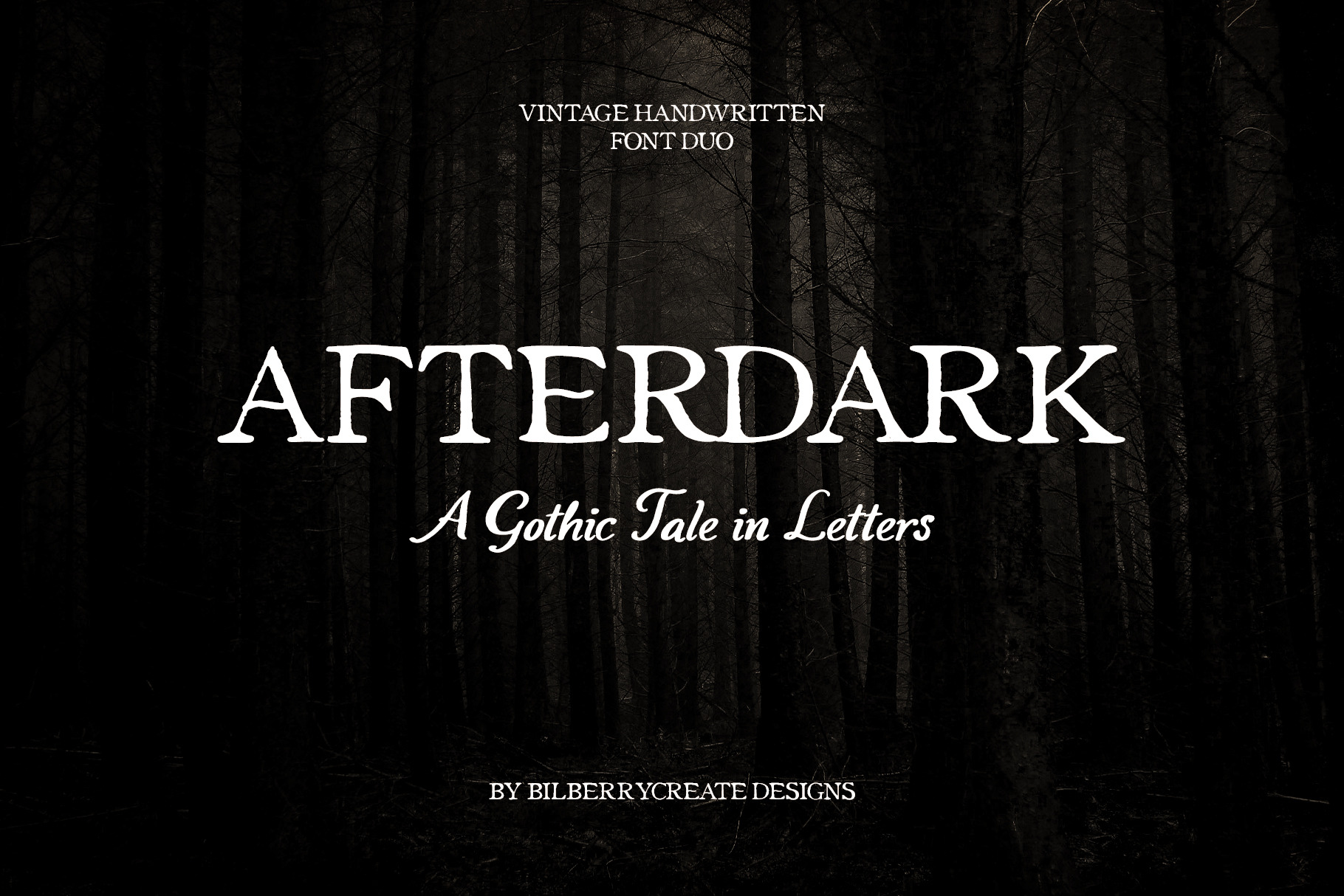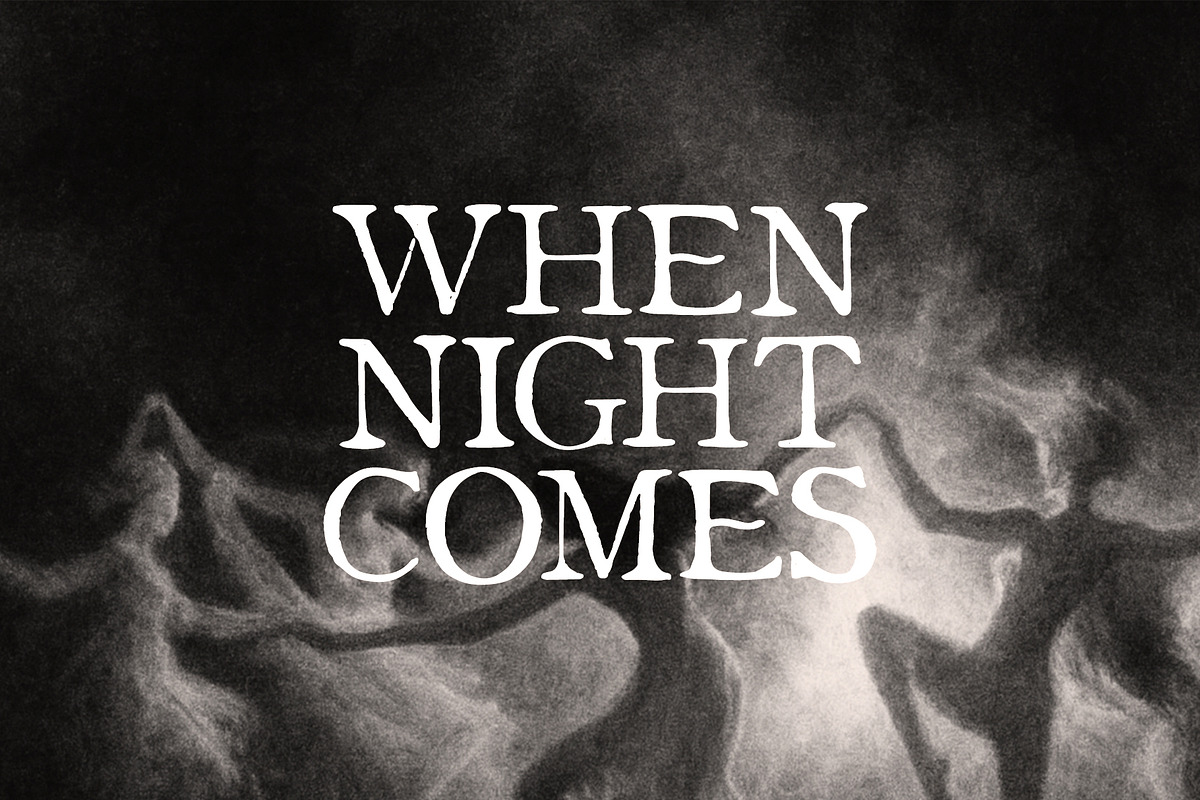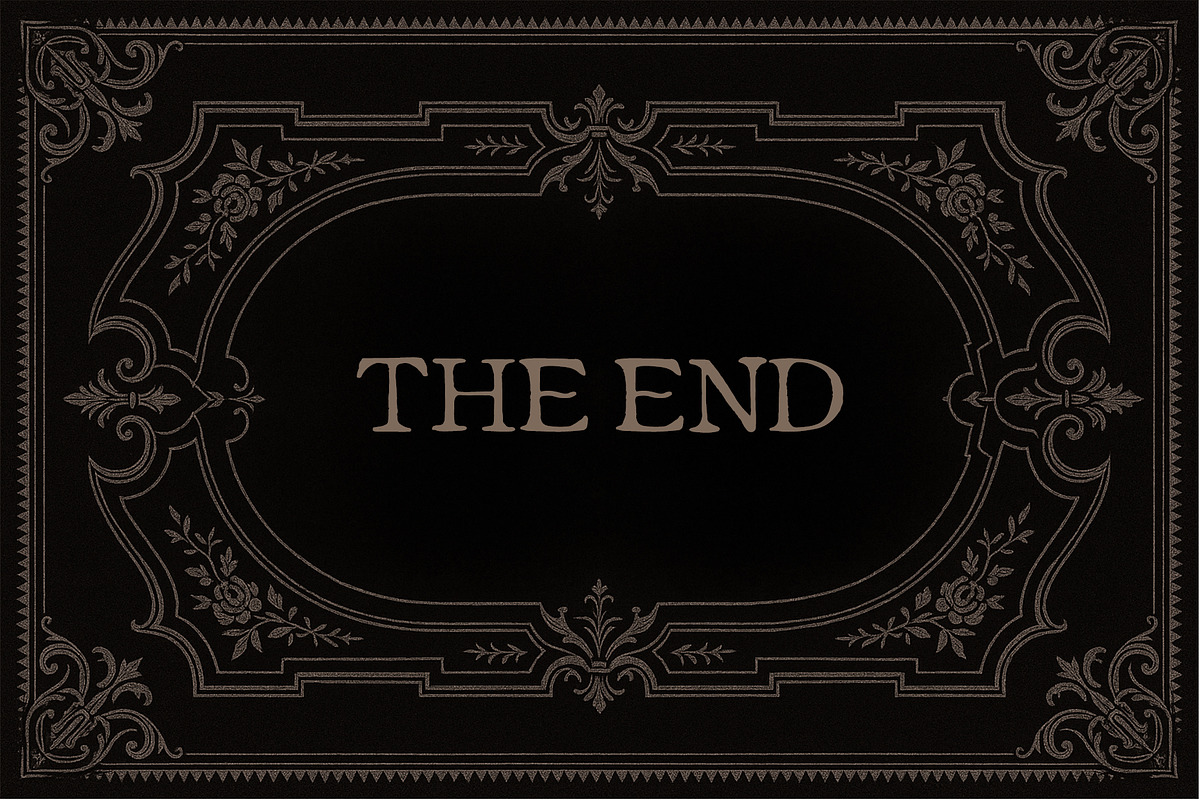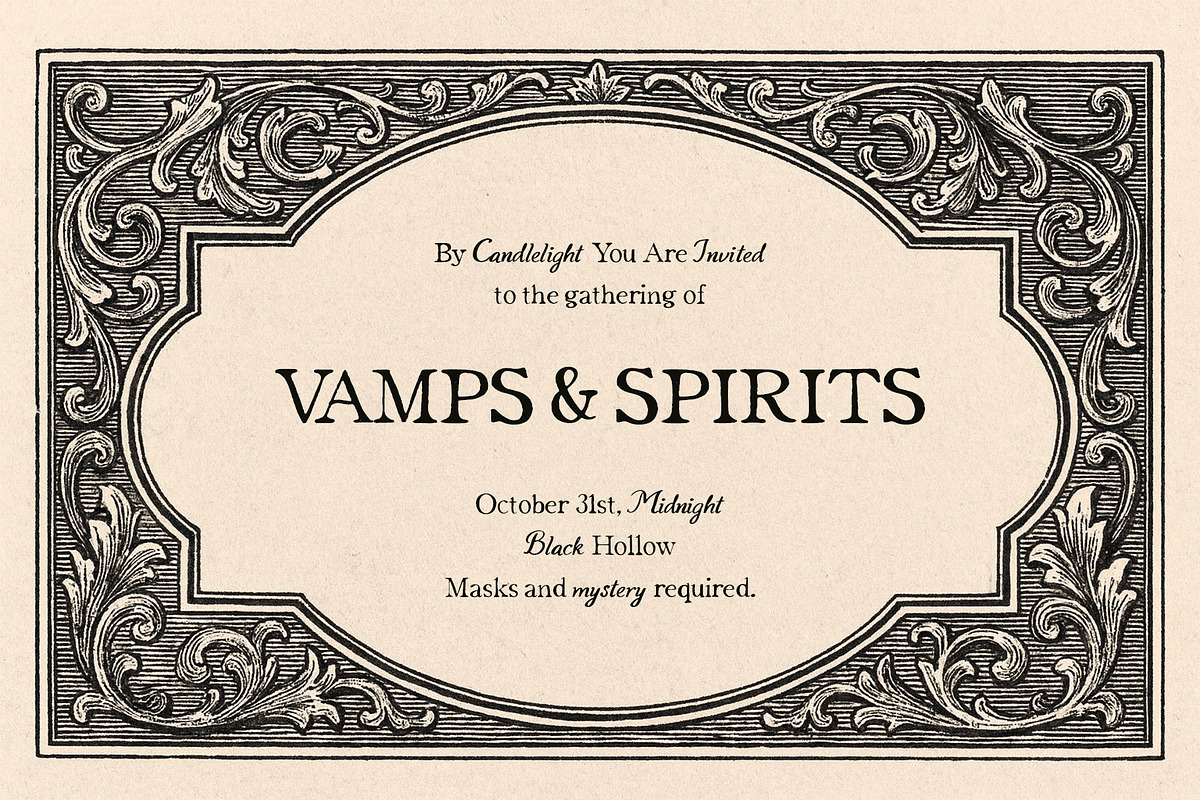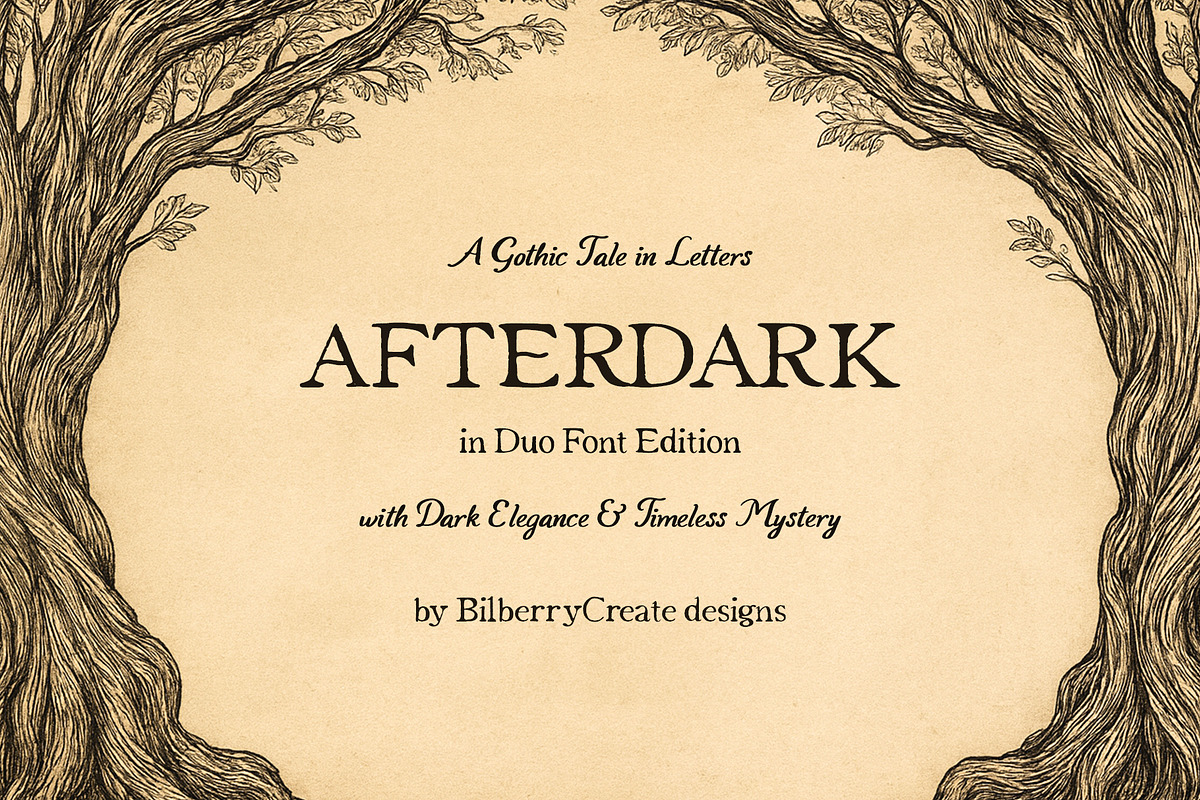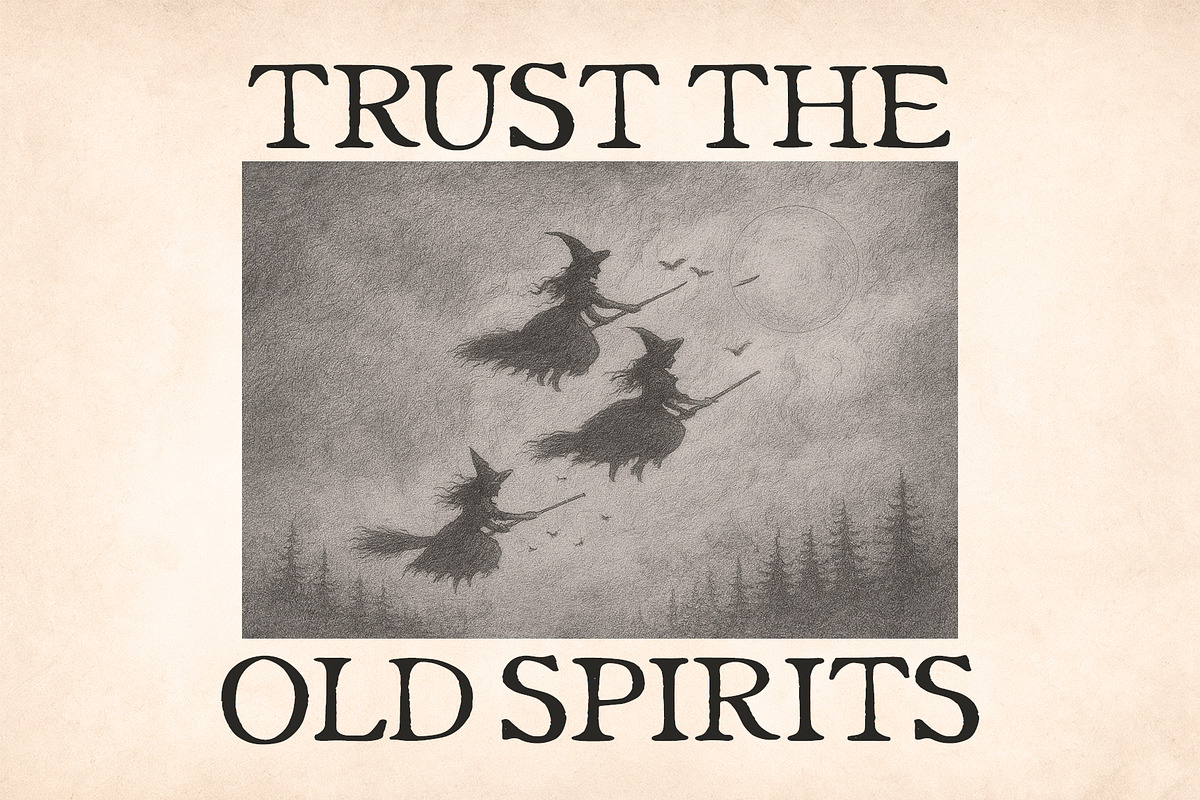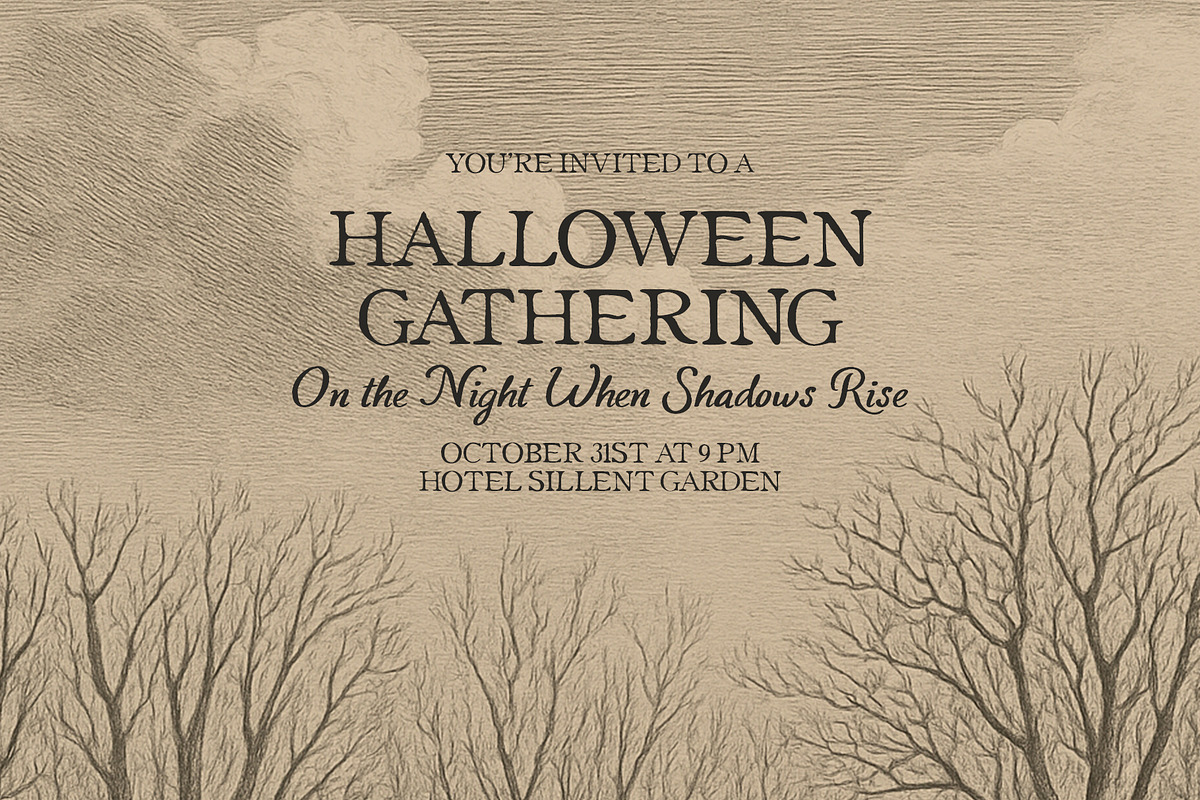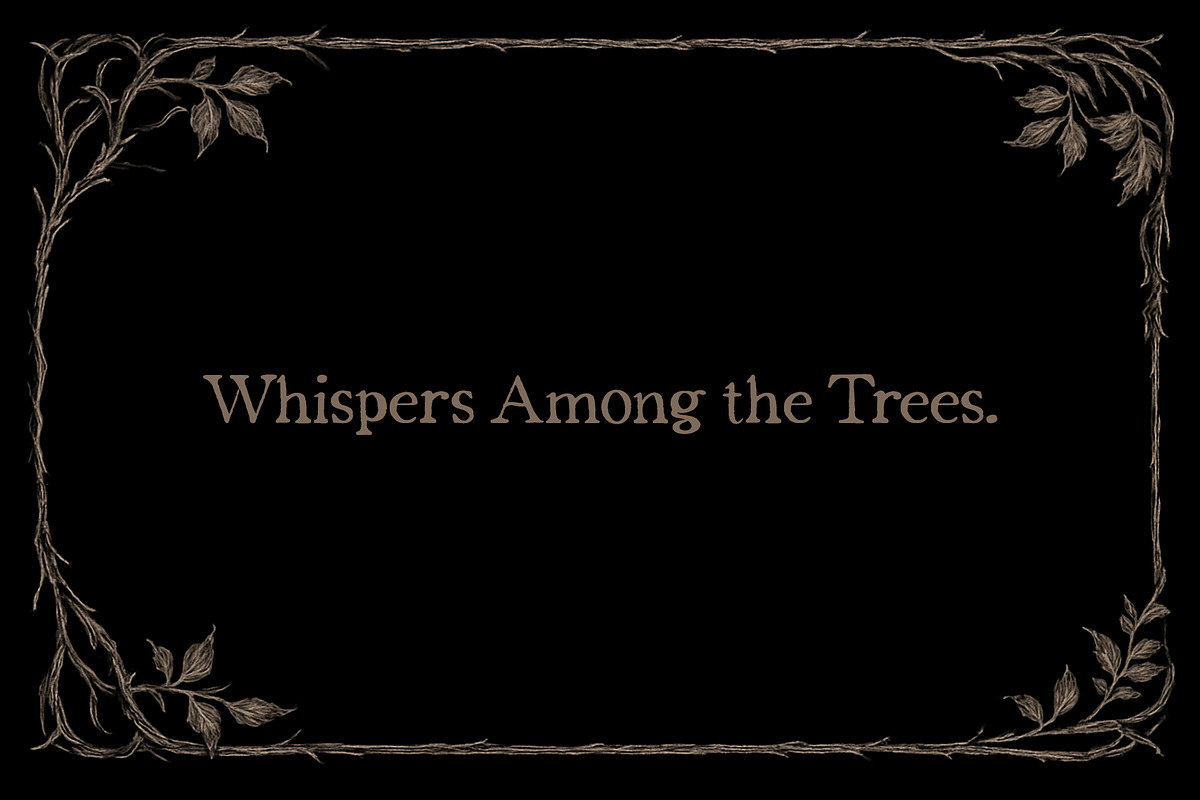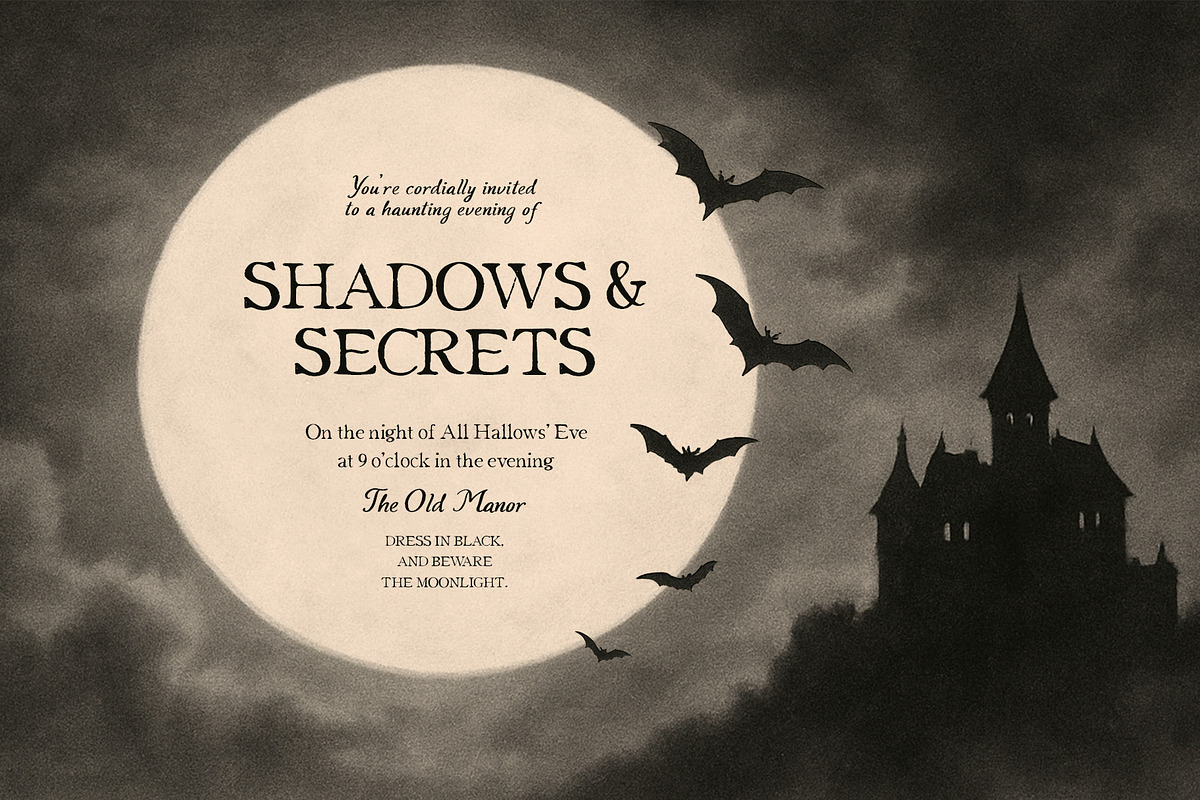
Afterdark vintage font duo
Afterdark - A Gothic Tale in Letters.
Step into the shadows with Afterdark, a hauntingly elegant vintage handwritten font duo inspired by Gothic tales, eerie manuscripts, and the timeless beauty of dark romance. This typeface combines two complementary styles - a bold, textured serif with strong Gothic character and a flowing handwritten script - perfect for creating designs that feel mysterious, dramatic, and atmospheric.
- Book covers & titles (especially Gothic, horror & fantasy genres)
- Posters & flyers for Halloween or mystical events
- Branding with a vintage or occult-inspired aesthetic
Invitations, cards, and packaging that need a touch of dark elegance
- Two font styles (serif + handwritten script)
- Works beautifully in both print & digital projects Bring your words to life with Afterdark, where every letter whispers a Gothic tale.